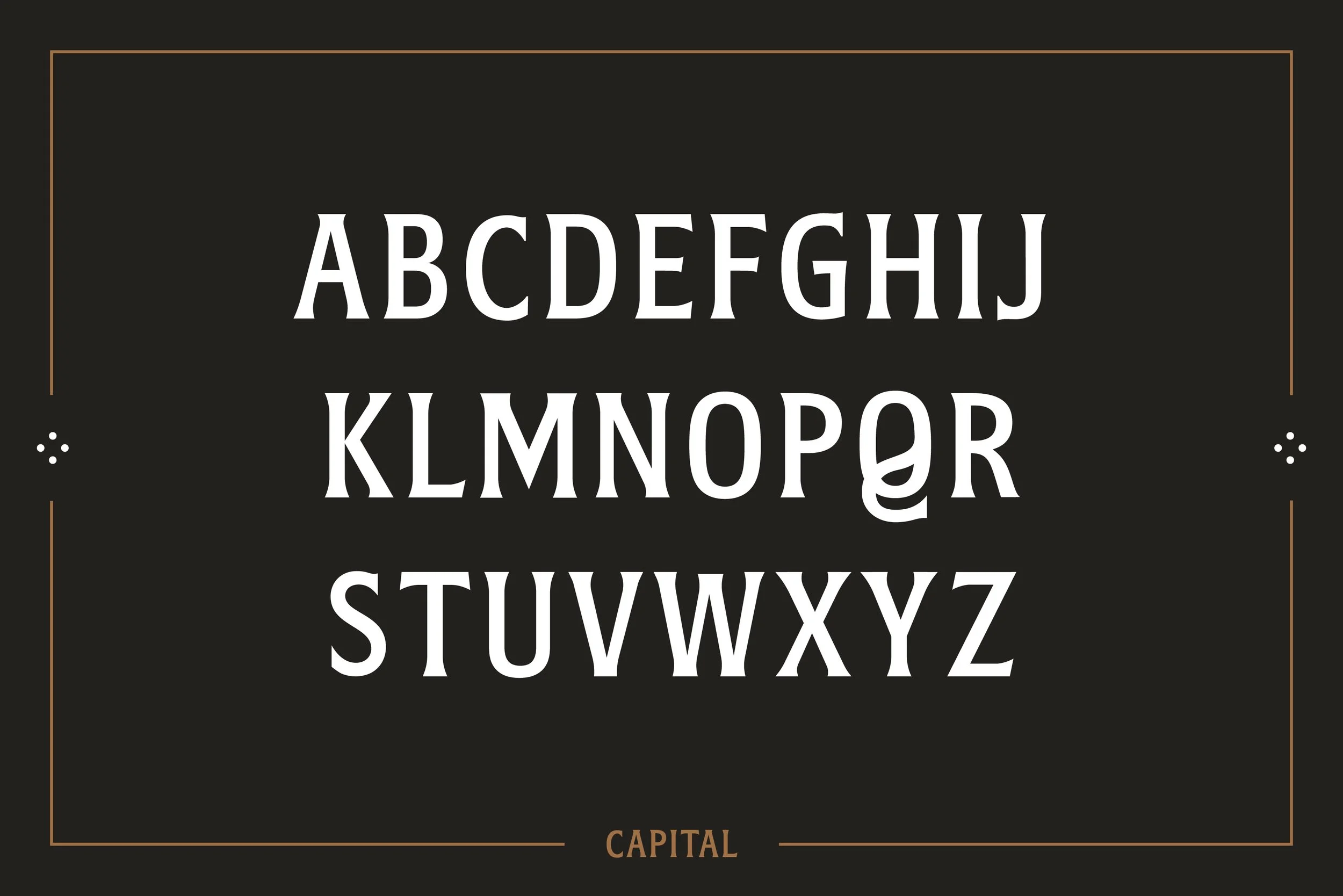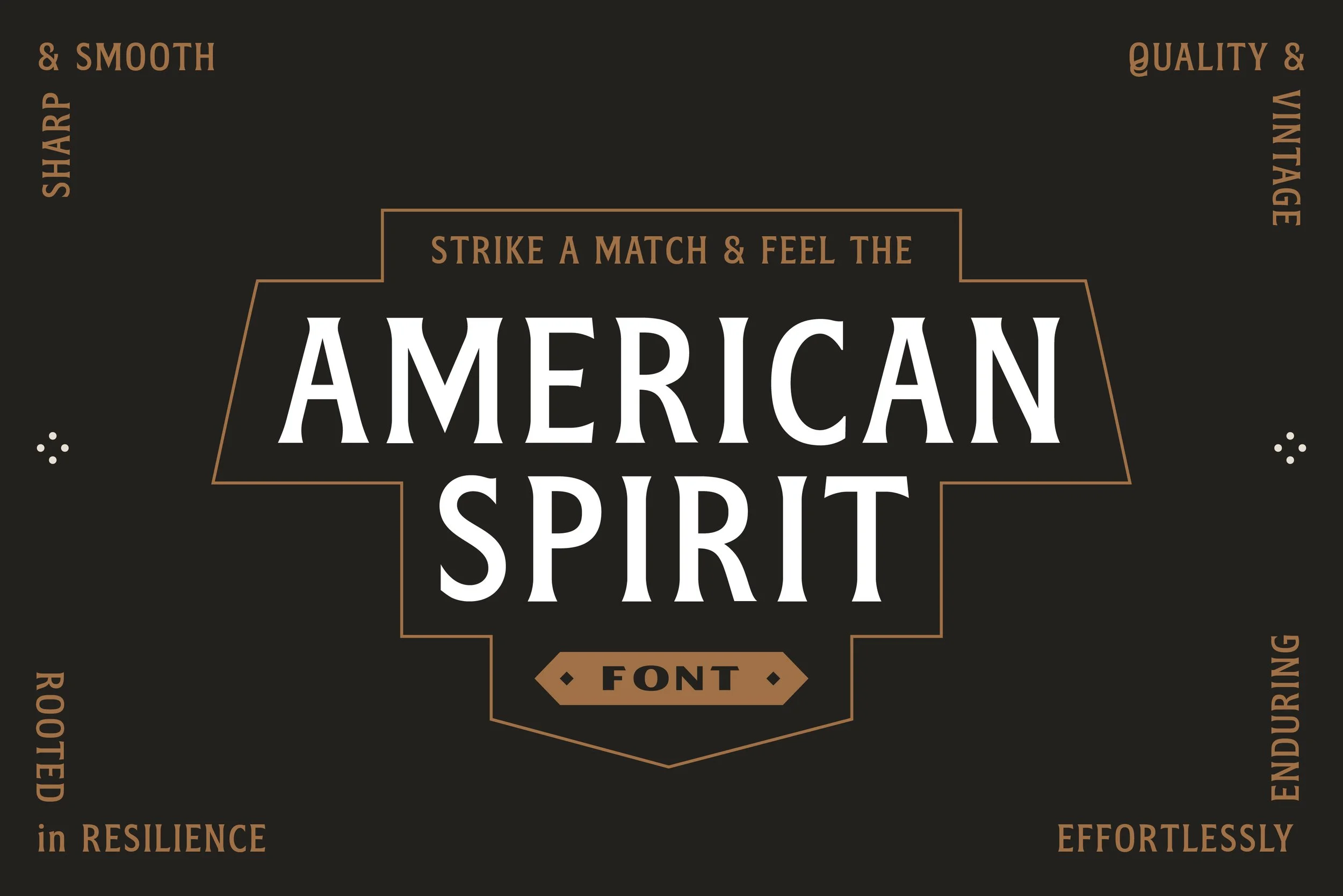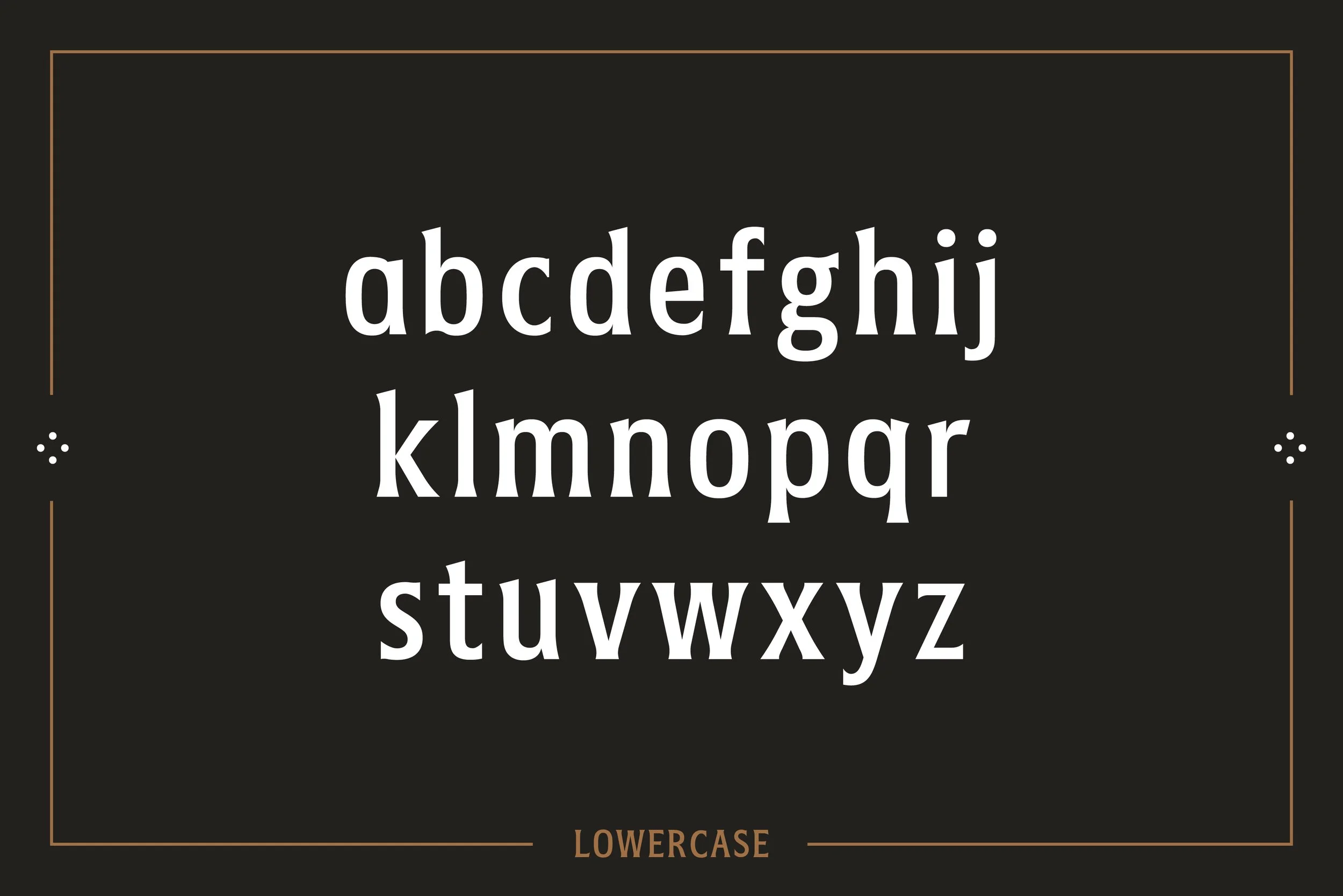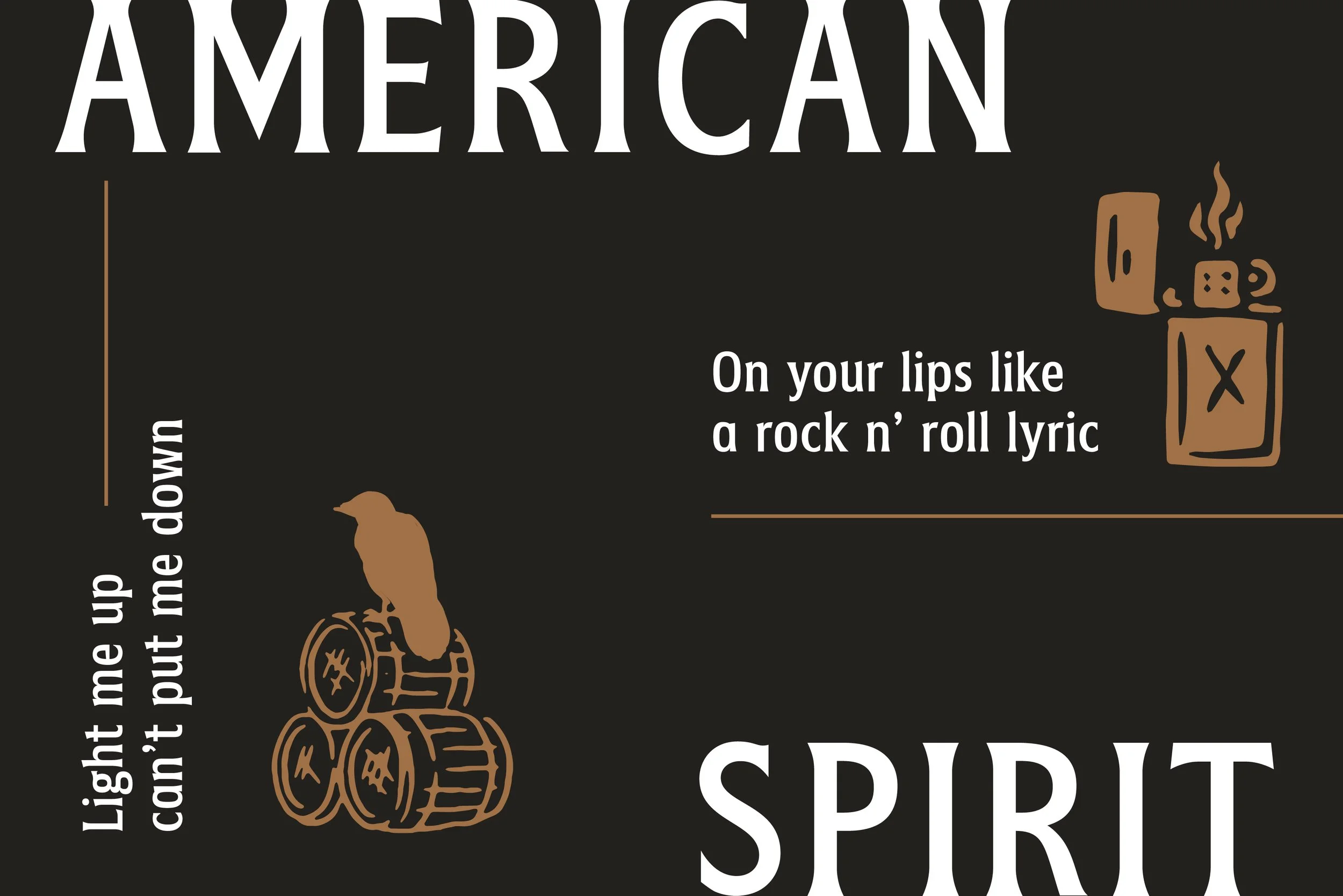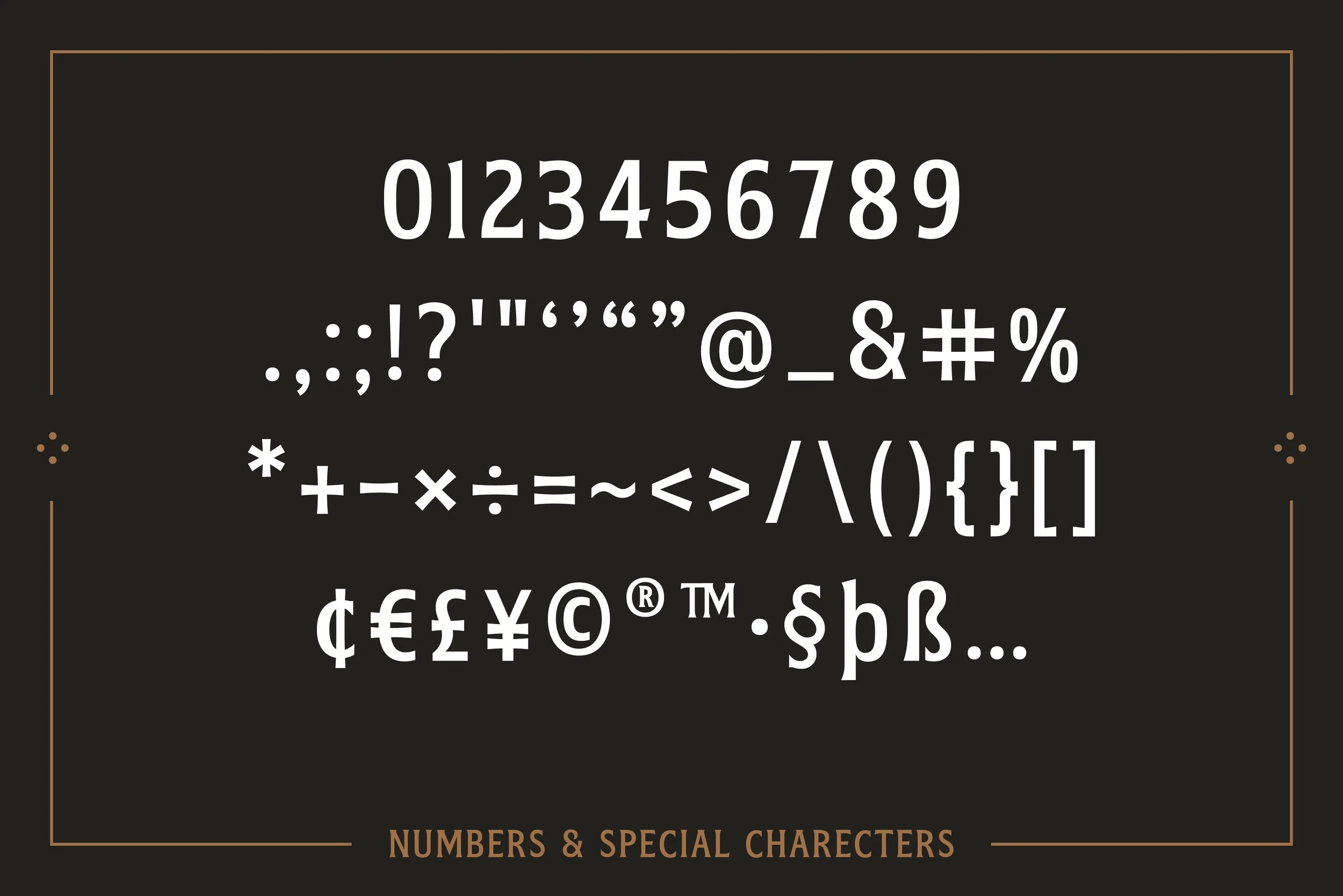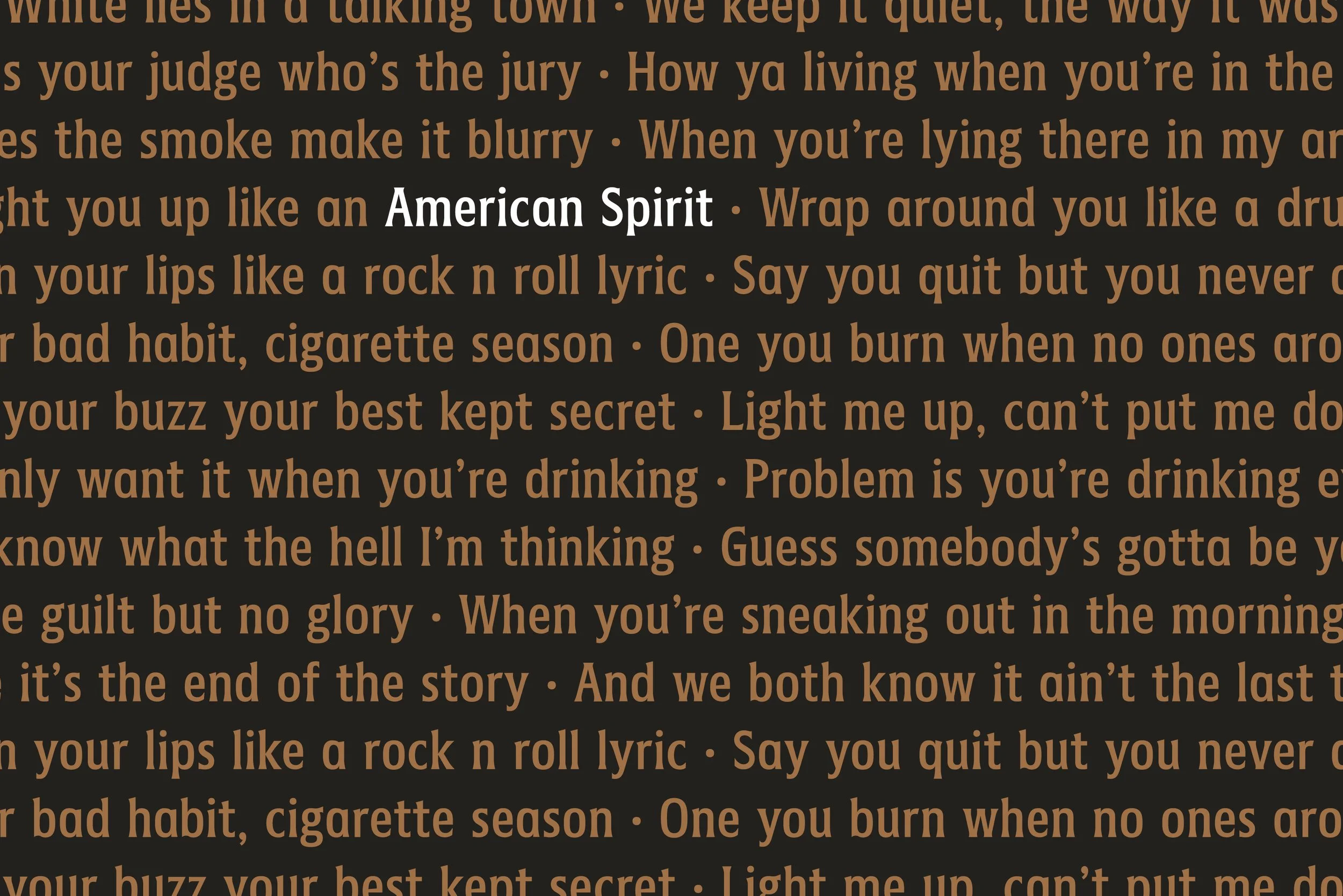
Strike a match and feel the American Spirit. This bold, heritage-inspired serif captures the essence of classic craftsmanship.
Designed with strong, confident letterforms and sharp, clean edges, American Spirit delivers a look that is both rugged and sophisticated. Its balanced proportions and subtle vintage detailing make it highly versatile, perfect for projects that demand authenticity and presence.